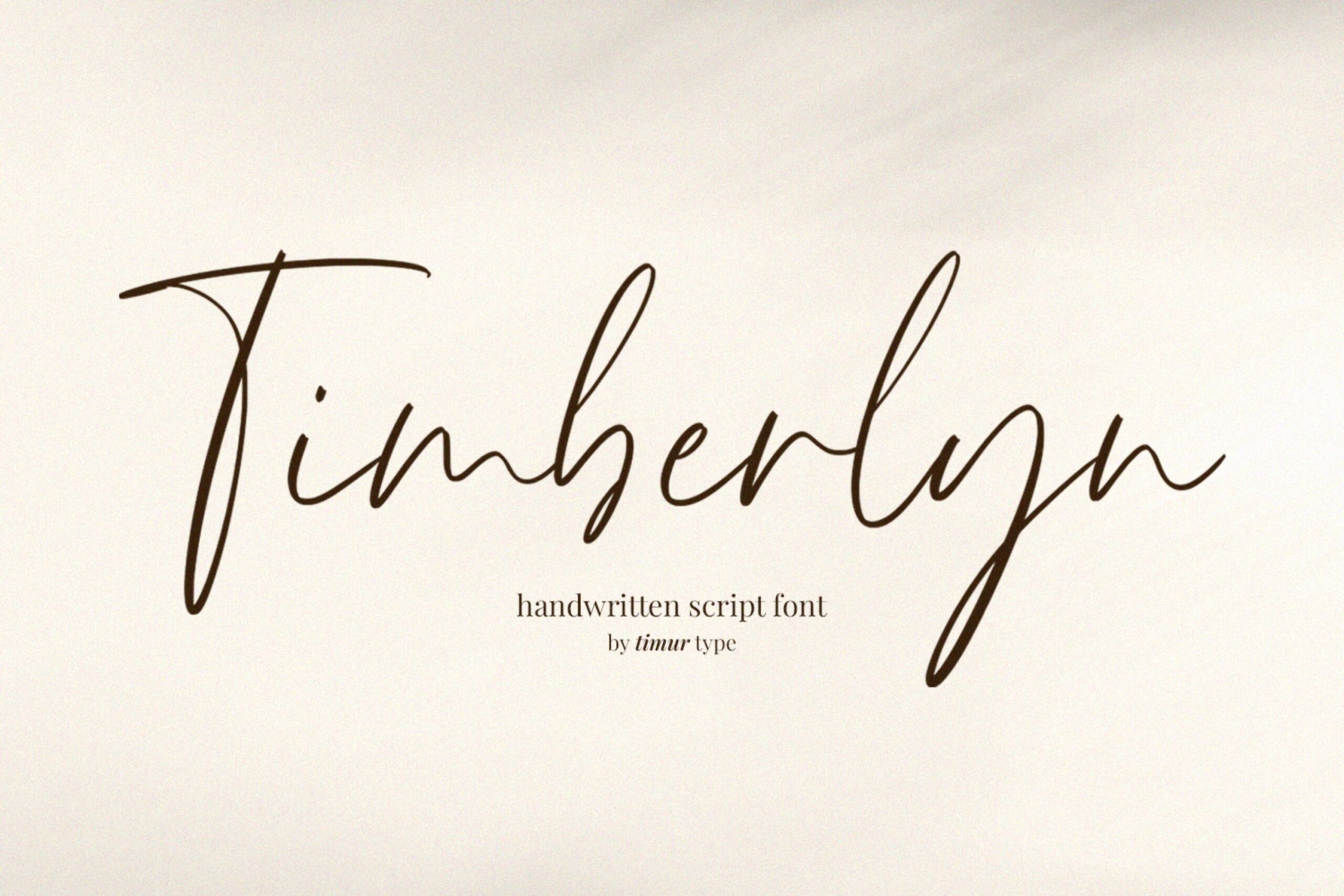
Introducing by Timur type
Proudly Present : Timberlyn
Timberlyn A Handwritten Script Font, which was created with great care and specially created for you 😊
Timberlyn is perfect for product packaging, branding project, megazine, social media, wedding, or just used to express words above the background.